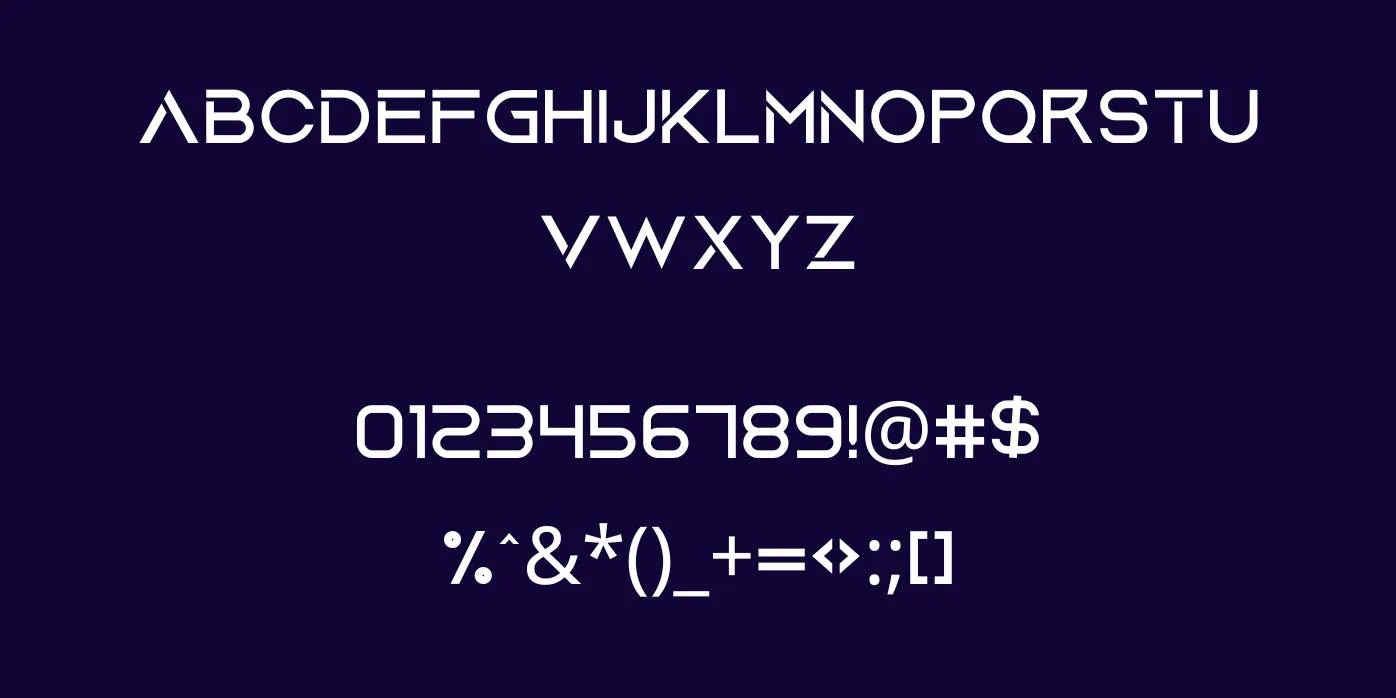
Aquire Font
Here we discuss detailed information about Aquire Font. This neat and clean font with a modern look is used to design many different projects. This stunning font was designed by Gregory Ortiz. It has so many advanced features which make it unique from others.
Usage You can this font for making so many different projects. It has, characters, symbols, numbers, capital letters, small letters, punctuations, and special characters. You can use this font for making attractive headlines, covers, and titles for different brands. This font has a very neat and clean look.
Branding, product packing, and labels can also be made by using this font. It is considered the best font for making eye-catching logos for different companies and organizations. You can also design websites and graphic designs with this stunning typeface. To make attractive projects you can make or edit designs in Adobe Photoshop, CSS, Canva, and Microsoft Word.
Is Aquire font a good font? Yes, it is a very nice techno font and you can use this for making many different projects for display and other small-size text. Does Aquire Font a web-safe font? Yes, you can use this font for making any website.
Different types of graphic designs can also be made by using this font. Can I use Aquire Font in PowerPoint? You can make so many different projects by using this font. You can make attractive presentations by using this font in PowerPoint.